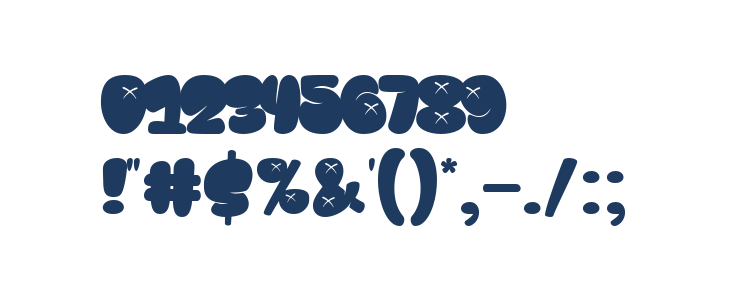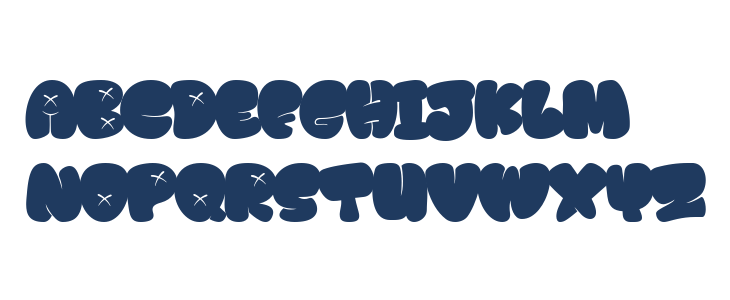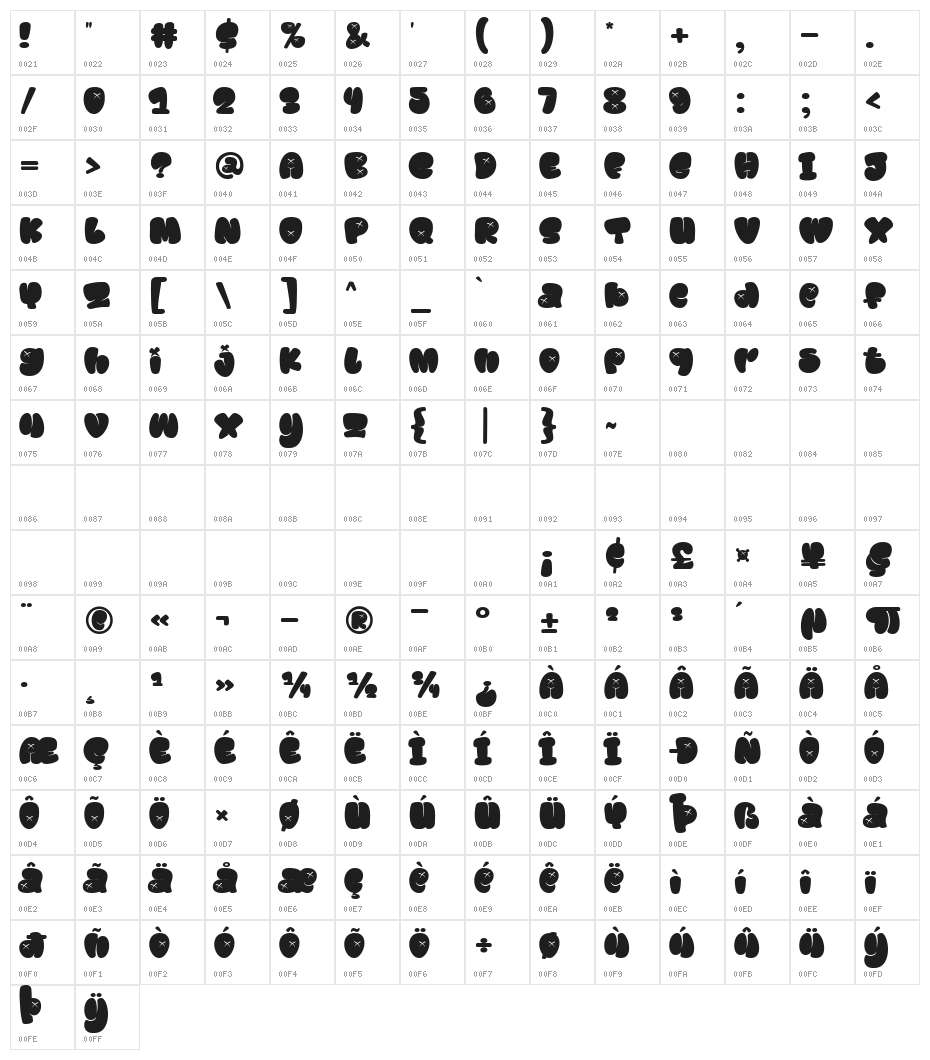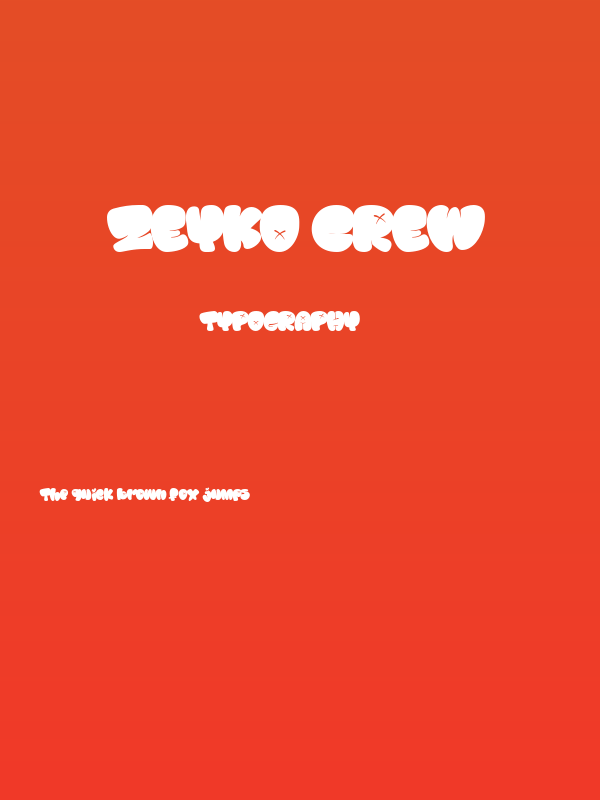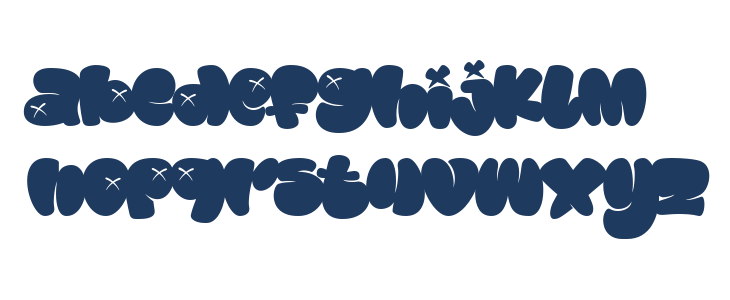
Zeyko Crew Font
| Overall Style | Decorative, Playful, Graffiti, Cartoon |
| Use Case | Headlines, Posters, Logos, Event Flyers |
| Proposed Projects | ChildrenΓ’β¬β’s books, posters, party invitations, street art graphics, playful branding, youth-oriented merchandise. |